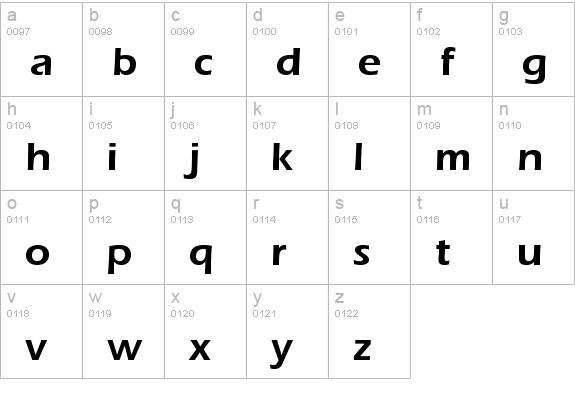
ErasEF-Demi Font Details
ErasEF-Demi is a sub-bold, structured variant in the ErasEF typeface family \xE2\x80\x94 well suited to sub-headlines and emphasised passages.
ErasEF-Demi is a striking and modern font that exudes professionalism and elegance. Its bold and sleek design makes it perfect for adding a touch of sophistication to any project, whether it be for a business presentation or a creative design endeavor. The clean lines and balanced proportions of ErasEF-Demi make it highly versatile and easily readable, ensuring that your message is conveyed with clarity and impact. What sets ErasEF-Demi apart is not just its aesthetic appeal, but also the fact that it is available for free. That's right, you can download this impressive font at FontsMarket.com without any cost. This means that you can elevate your designs without breaking the bank, making ErasEF-Demi an invaluable asset for designers, students, and anyone else looking to enhance their visual creations. Whether you're looking to make a statement with bold headlines or add a touch of sophistication to your body text, ErasEF-Demi is the perfect choice. Download it for free today and see the difference it can make in your projects!